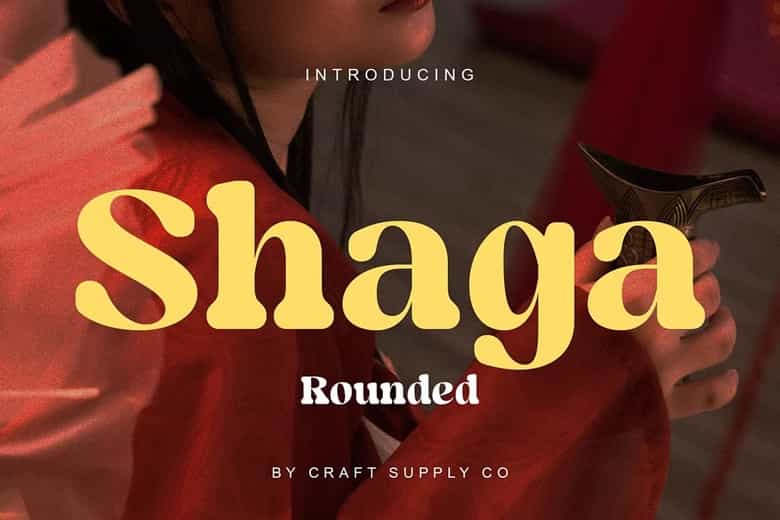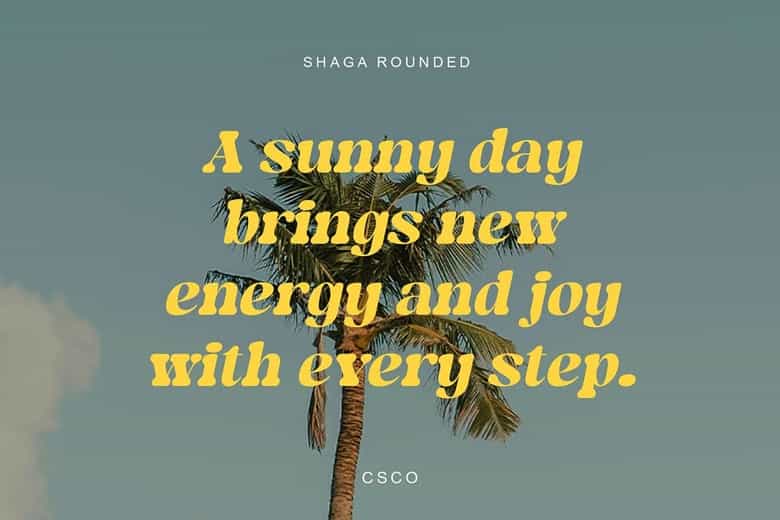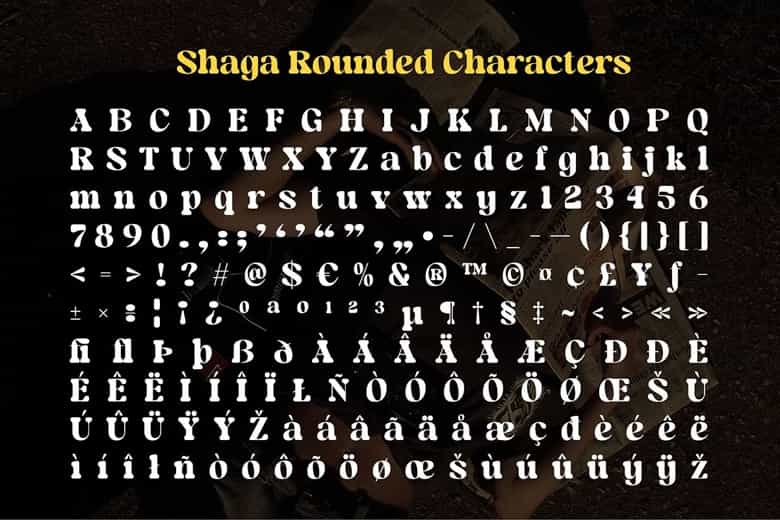
Shaga Rounded is a modern retro serif typeface that has sharp edges of slab serifs with rounded corners making it tough yet friendly. The strong, thick lines of the serifs make the font look stable, while the curves make it look friendly and welcoming. This balance between muscle and femininity gives it a rather vintage look that is still very up to date. Thanks to its daring and friendly character,